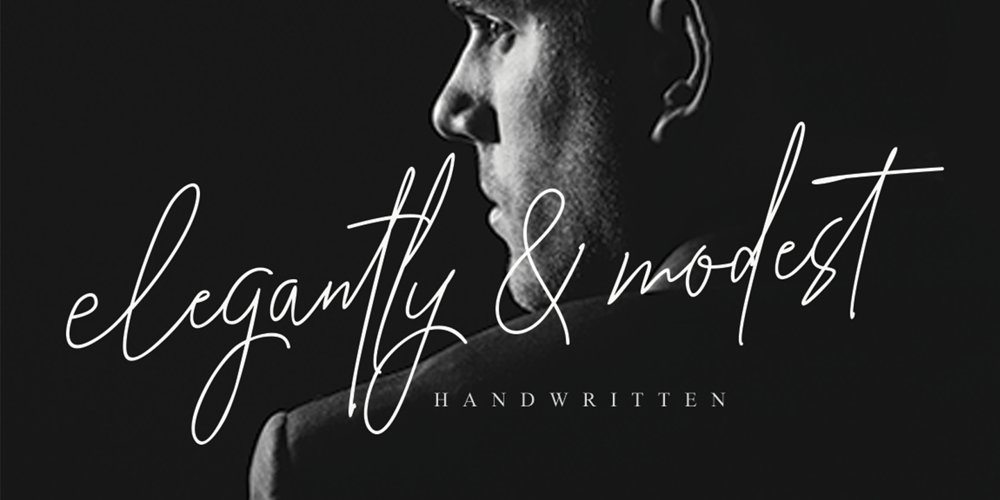
Elegantly Modest
Elegantly Modest font
Elegantly Modest Font Family was designed by Ayi Teiry and published by eyetype. Elegantly Modest contains 1 styles and family package options. Elegantly&Modest a work that is purely a result of handwriting, has a natural characteristic. this is perfect for invitations, signatures, blogs, social media, business cards, product brands.elegantly has two sets of letters, namely Stylistic standard and Stylistic Alternate. and includes uppercase and lowercase letters, numbers and punctuation marks, also equipped with 42 ligature.OpenType features can be accessed by using OpenType smart programs such as Adobe Photo Shop, Adobe Illustrator, Adobe Indesign, Corel Draw and Microsoft Office. can also be accessed through the character map. special greetings for all, all of us all smoothly in running the routine